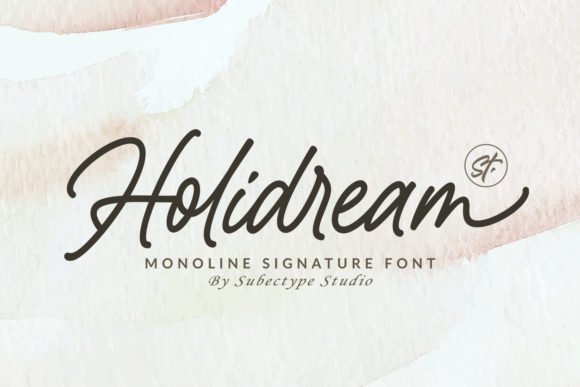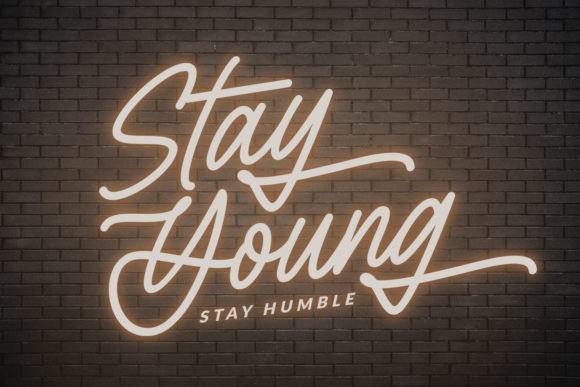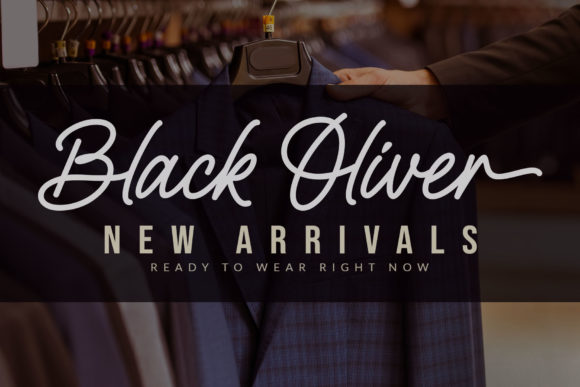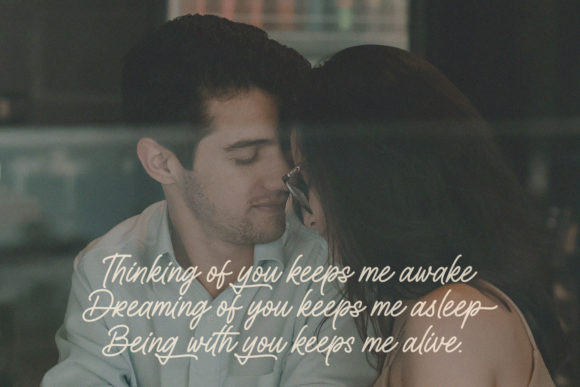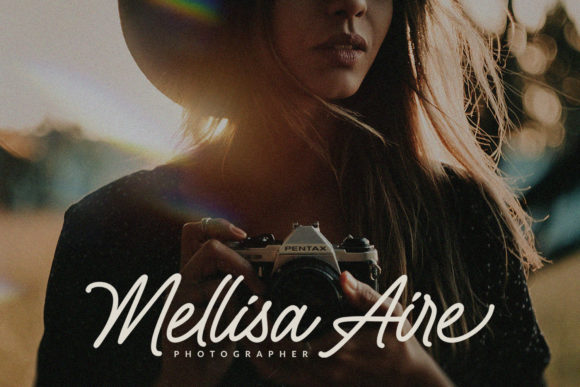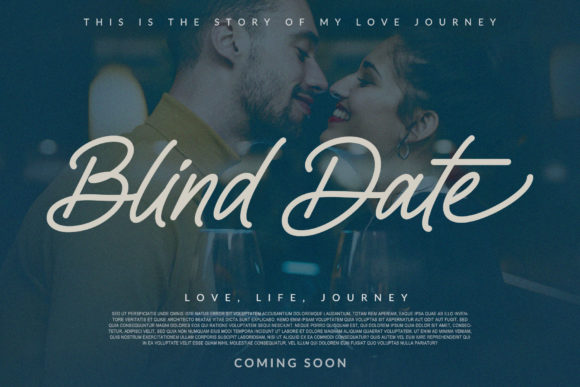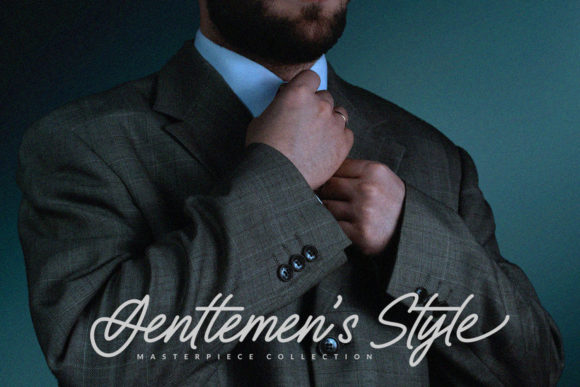
Unlock the Magic of the Holiday Season with the Holidream Font
As a designer, there’s nothing quite like the thrill of landing a holiday branding project. The rush of creativity, the pressure to deliver something truly special – it’s a recipe for magic. And what better way to capture the essence of the season than with a font that embodies the spirit of winter wonder?
Enter the Holidream Font, a stunning script font that’s as smooth as a snowy night and as elegant as a festive holiday card. With its vintage charm and perfectly balanced curves, this font is the perfect companion for fashion branding and editorial designs that need a touch of sophistication. Whether you’re crafting a holiday campaign or creating a seasonal newsletter, the Holidream Font is the perfect tool to help you bring your vision to life.
Holidream Font Key Features
- Character Set: The font includes a comprehensive set of characters, including Latin, Cyrillic, and Greek alphabets, as well as a wide range of punctuation and symbol glyphs.
- Unique Characteristics: Holidream Font features a distinctive, hand-drawn design with intricate details and ornaments, making it ideal for creating festive and holiday-themed designs.
- Font Pairing: The font is designed to pair well with other sans-serif and script fonts, making it easy to create visually appealing and harmonious designs.
Holidream Font Review
I recently had the chance to work with the Holidream Font, and I’m excited to share my thoughts on this font. Here’s what I think:
- Unique and playful design: Holidream Font brings a fun and festive vibe to any project.
- Perfect for holiday-themed designs: Whether you’re creating a Christmas card or a New Year’s Eve invitation, this font is a great choice.
- High-quality glyphs: The font includes a wide range of characters, including ligatures and alternates.
- Limited flexibility: The font is designed specifically for holiday-themed projects, so it may not be suitable for other types of designs.
- Not ideal for body text: The font is best used for headlines and titles, as it can be difficult to read in larger blocks of text.
Overall, I think the Holidream Font is a great choice for holiday-themed projects. Its unique design and high-quality glyphs make it a fun and effective option. However, it’s not the best choice for every project, and its limited flexibility may be a drawback for some designers.
Holidream Font is ideal for creating festive and holiday-themed designs, such as Christmas cards, New Year’s Eve invitations, and Valentine’s Day posters. It’s also suitable for creating eye-catching titles and headings for marketing materials, social media graphics, and websites.